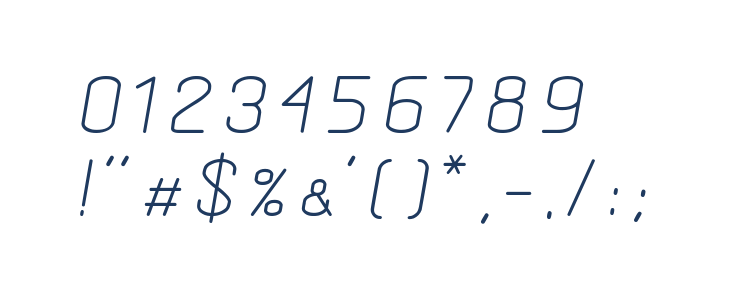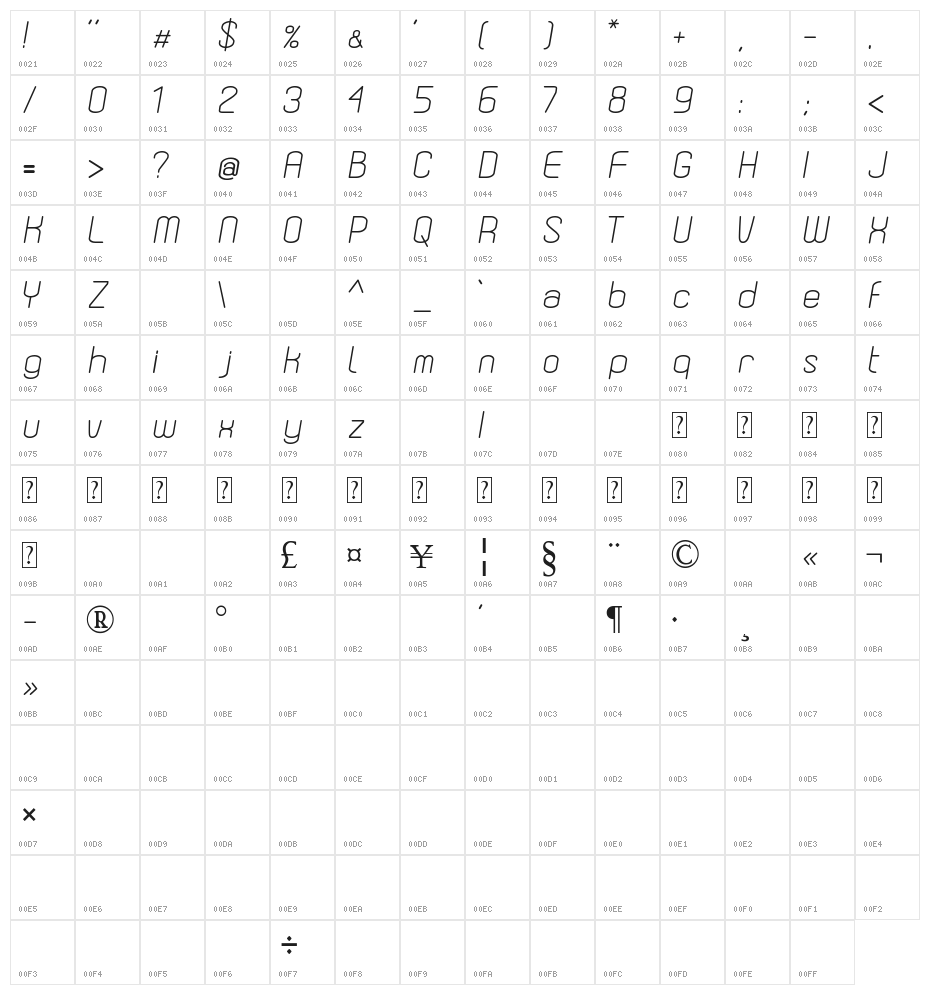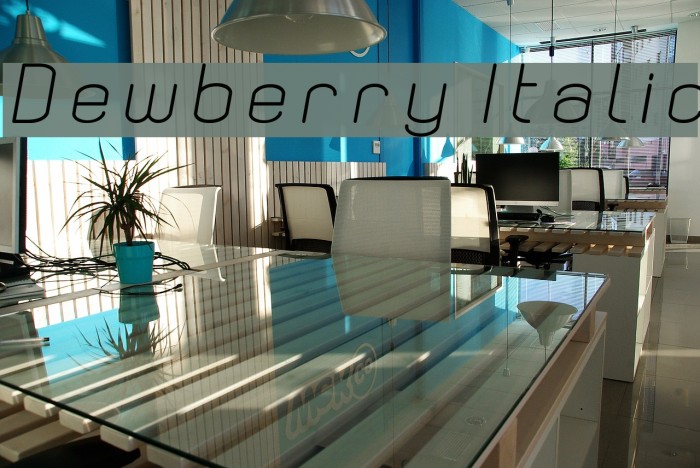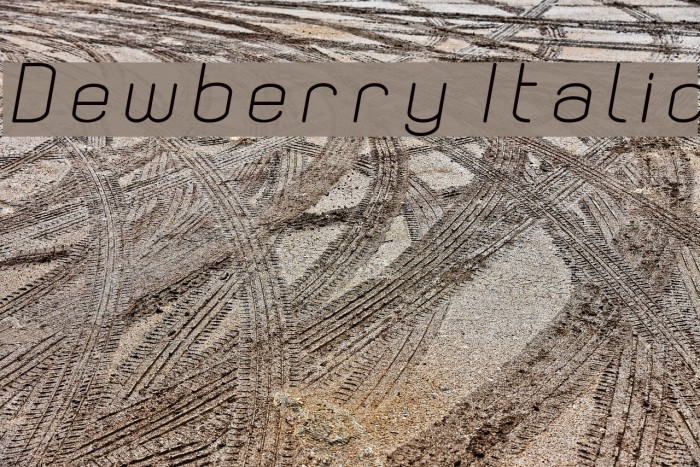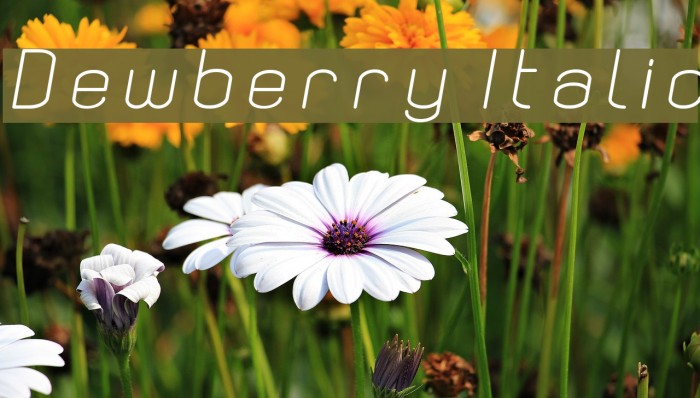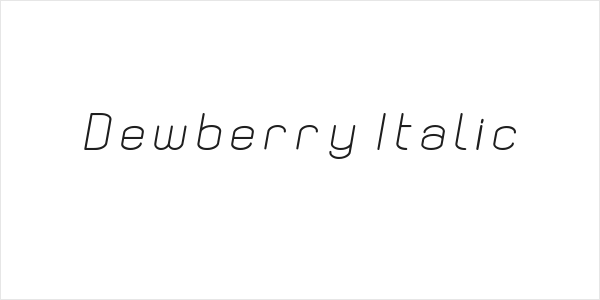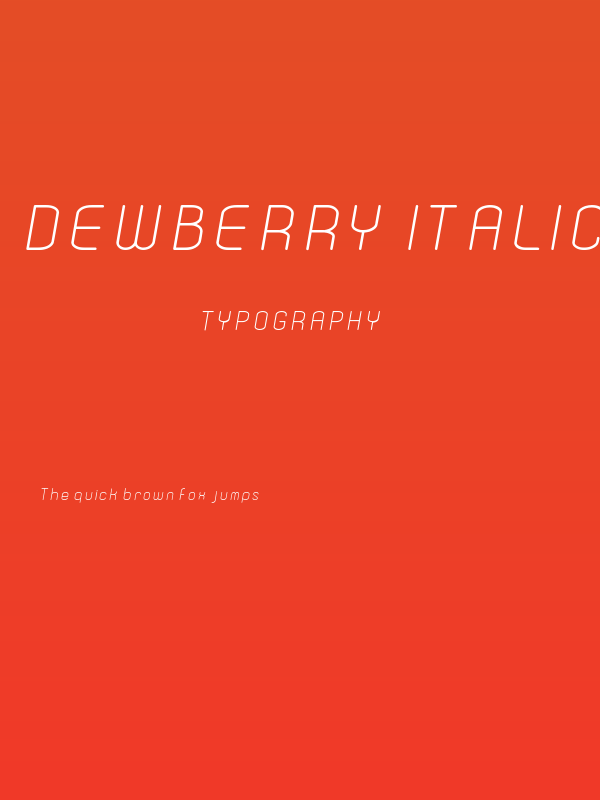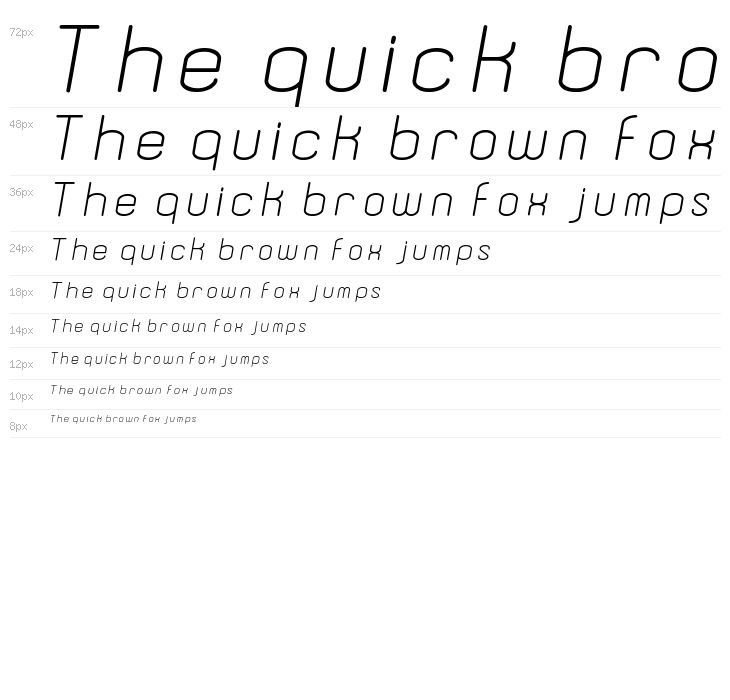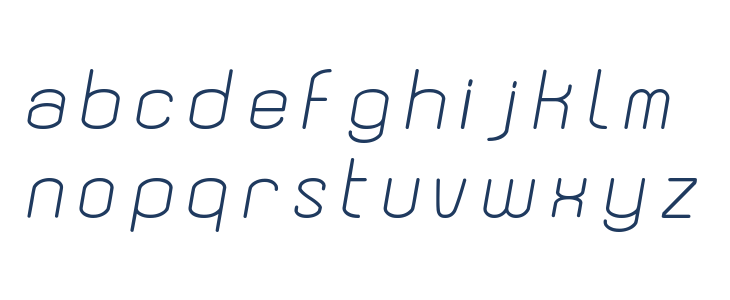
Dewberry Italic Font
Dewberry Italic Description
This font features a sleek and modern design with a distinct italic slant, giving it a dynamic and forward-moving appearance. The characters are crafted with a geometric precision, showcasing clean lines and a uniform stroke width that maintains consistency across both uppercase and lowercase letters. The numerals and special characters follow the same design principles, ensuring a cohesive look. The overall style is minimalistic yet sophisticated, making it suitable for contemporary design projects. The font's legibility is enhanced by its well-proportioned characters and balanced spacing, making it versatile for various applications.
| Proposed Projects | Ideal for branding, editorial design, digital interfaces, and modern advertising campaigns. |